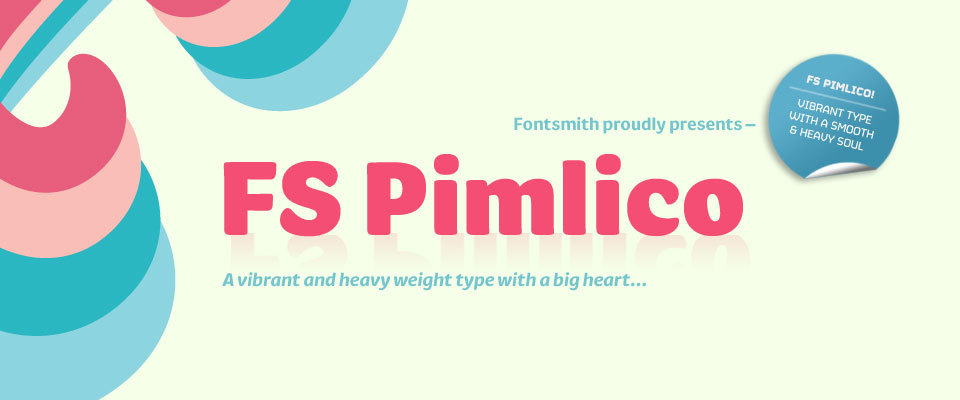
FS Pimlico is a vibrant type. Inspired by brushwriting, Pimlico is a versatile and adoring type system capable of bringing a very human and comfortable feel to small texts, headlines, signage systems, corporate identities and large billboard ads. (via FS Pimlico – Fontsmith)